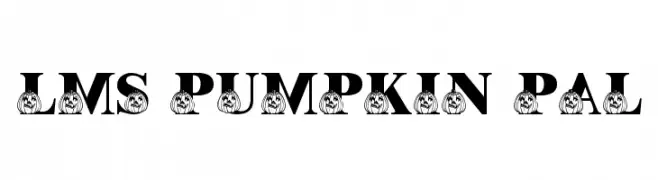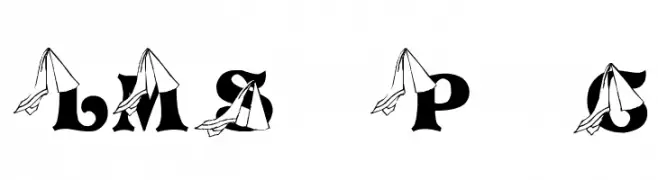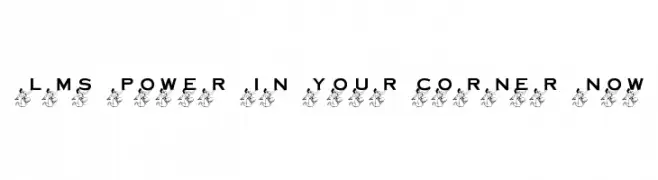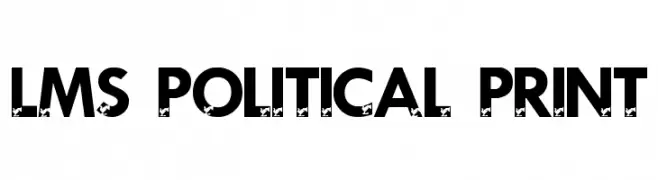
A bold, decorative font with pumpkin-themed embellishments for a festive look.
A decorative font with ornate, flowing embellishments for a whimsical and elegant look.
A playful font with pony illustrations integrated into bold, rounded characters.
A whimsical dingbat font featuring charming pony illustrations in various playful poses.
A whimsical decorative font with pony illustrations embedded in each letter.
A bold, decorative font with playful elephant illustrations integrated into each character.
A bold, modern sans-serif font with geometric lines and uniform strokes.
A decorative font with Thanksgiving-themed illustrations within bold uppercase letters.
A decorative font with bold letters integrated with porpoise illustrations.
A bold, textured font with a vintage, distressed style.